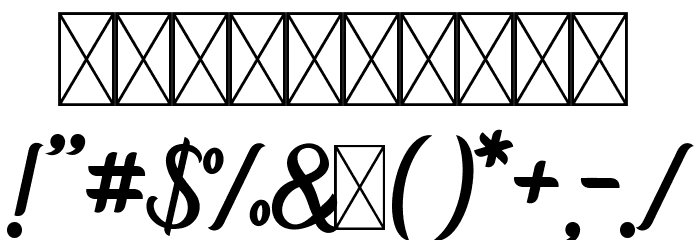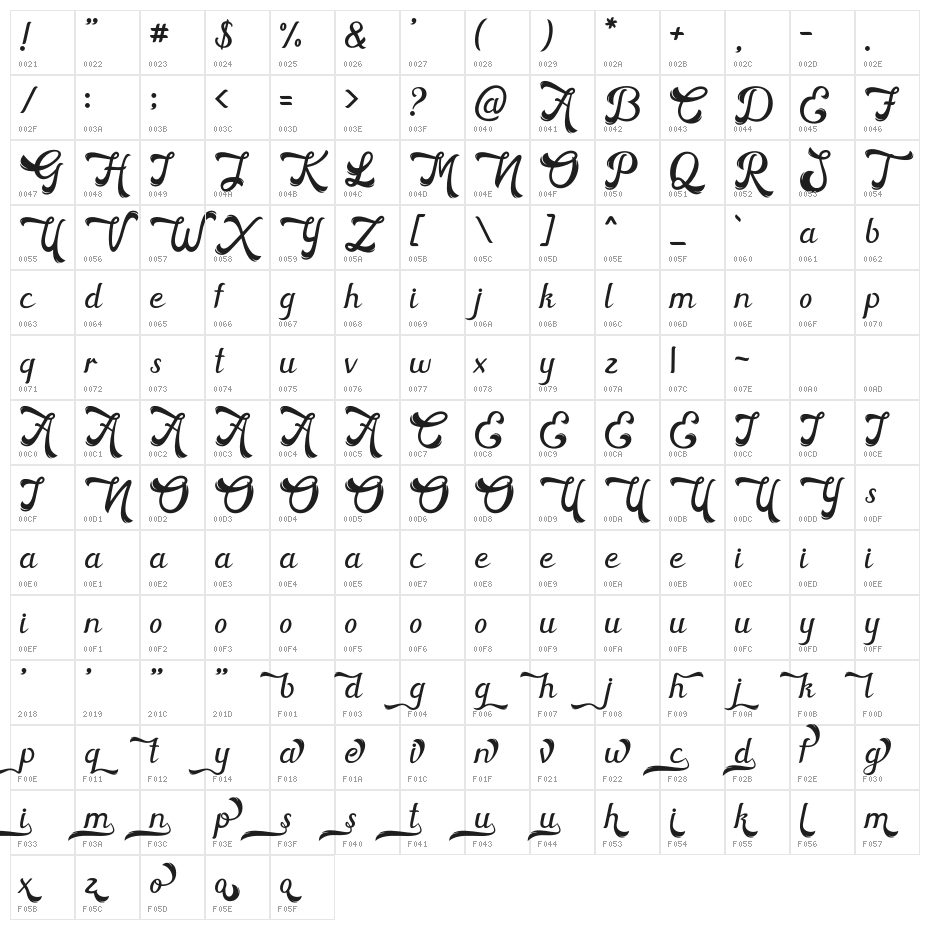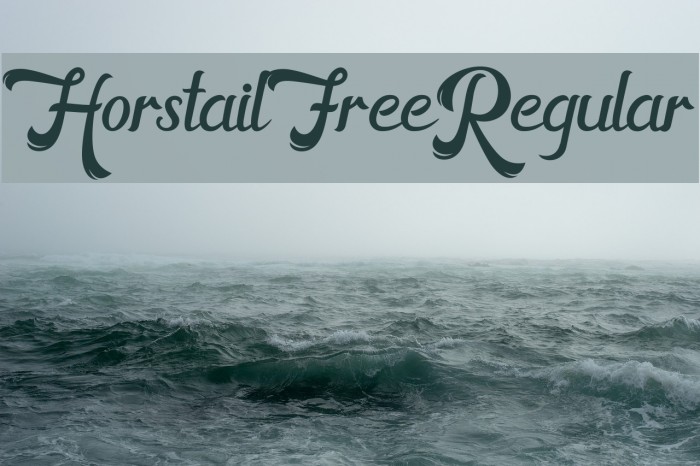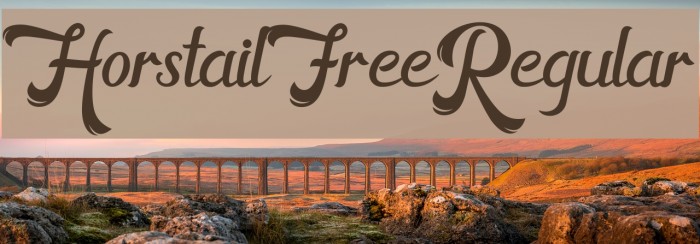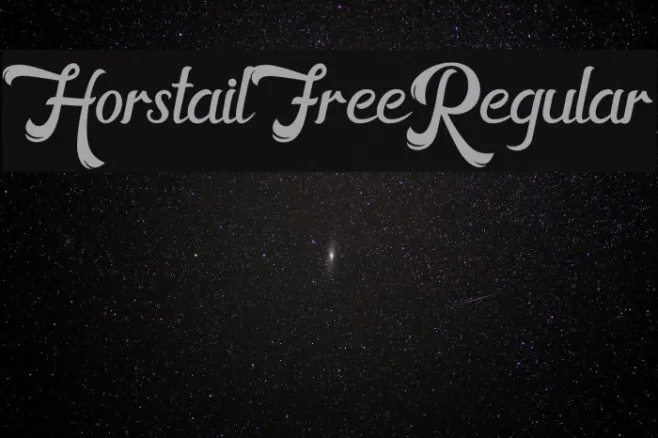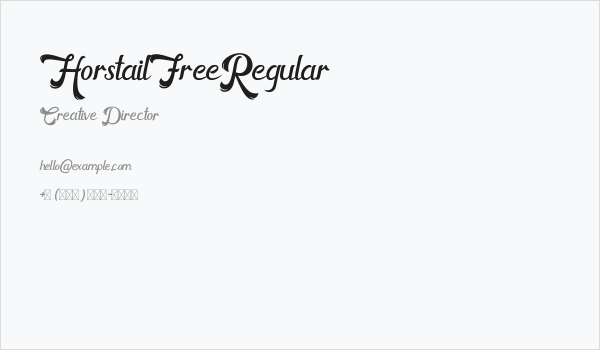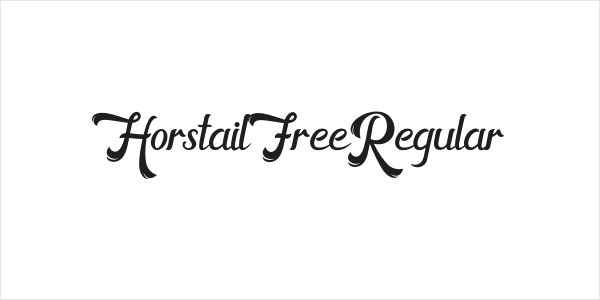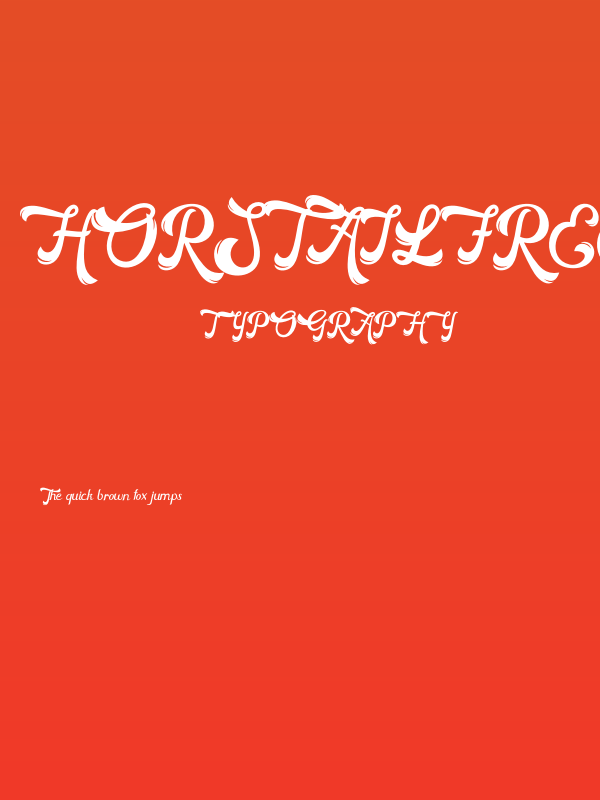
HorstailFreeRegular Font
HorstailFreeRegular Description
This font features an elegant and flowing script style, characterized by its smooth, cursive letterforms that convey a sense of sophistication and grace. The uppercase letters are particularly ornate, with intricate loops and flourishes that add a decorative touch. The lowercase letters maintain a consistent flow, enhancing readability while retaining the font's stylish appearance. The numerals are clear and distinct, matching the overall aesthetic. Special characters are included, complementing the font's design with similar decorative elements. This font is ideal for projects that require a touch of elegance and refinement.
| Use Case | Headlines, Invitations, Branding |
| Proposed Projects | Ideal for wedding invitations, elegant branding, greeting cards, and luxury product packaging. |